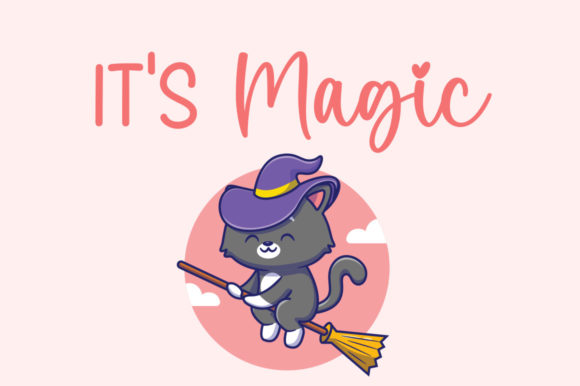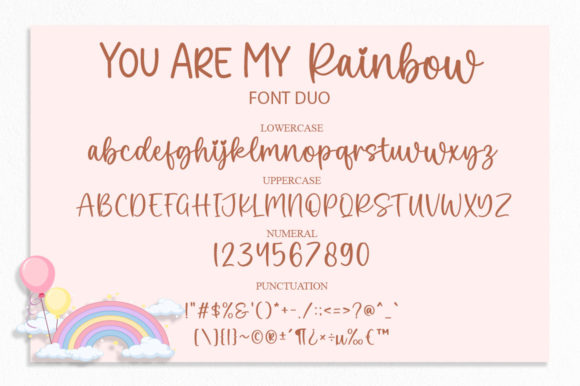
You Are My Rainbow consists of two fonts designed to complement each other perfectly. Together or apart, these fonts are ideal for adding a chic and cheery touch to your crafts.
You Are My Rainbow Font